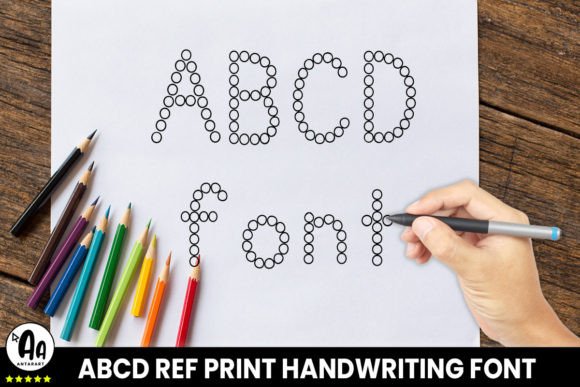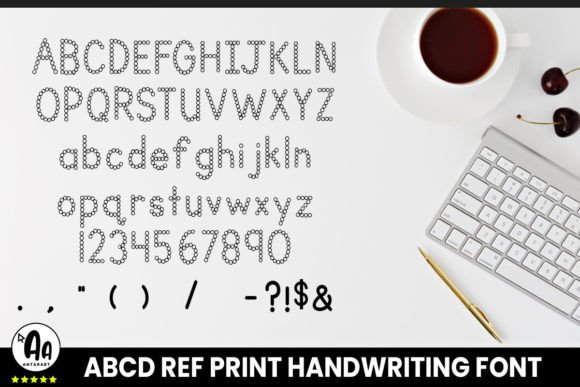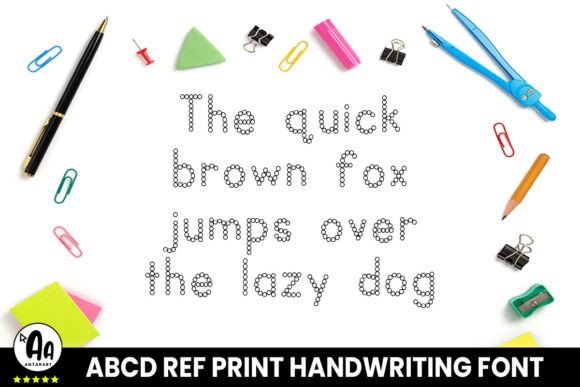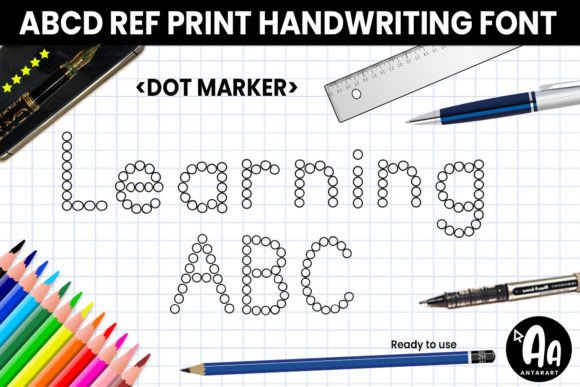
Introducing the Abcd Ref Dot Marker Font: A Fun and Interactive Learning Tool
Are you a designer, crafter, or educator looking for a unique and engaging way to teach the print alphabet? Look no further than the Abcd Ref Dot Marker Font. This innovative dotted display font is based on the D’Nealian Method used in US schools, and it’s perfect for creating thousands of worksheets that make learning fun and interactive.
What is the Abcd Ref Dot Marker Font?
The Abcd Ref Dot Marker Font is a specially designed font that features dotted letters, making it easy for children to learn and practice writing the alphabet. The font is based on the D’Nealian Method, a widely used handwriting program in US schools that emphasizes correct letter formation and spacing. The dotted design of the font allows children to practice tracing and writing letters in a fun and engaging way.
As a designer or crafter, you can use the Abcd Ref Dot Marker Font to create a wide range of learning materials, including worksheets, activity sheets, and educational resources. The font is perfect for:
- Creating customized worksheets for children to practice writing and tracing letters
- Designing educational resources, such as alphabet charts and posters
- Making interactive learning materials, such as letter tracing cards and activity sheets
- Developing engaging and interactive learning experiences for children
Benefits for Educators and Parents
As an educator or parent, you can use the Abcd Ref Dot Marker Font to make learning the alphabet a fun and enjoyable experience for children. The font is perfect for:
- Creating customized worksheets and activity sheets for children to practice writing and tracing letters
- Providing children with a interactive and engaging way to learn the alphabet
- Helping children develop their fine motor skills and hand-eye coordination
- Supporting children with special needs or learning difficulties
Features of the Abcd Ref Dot Marker Font
The Abcd Ref Dot Marker Font has several features that make it an ideal learning tool:
- Based on the D’Nealian Method, a widely used handwriting program in US schools
- Features dotted letters for easy tracing and writing practice
- Perfect for creating customized worksheets and activity sheets
- Supports interactive and engaging learning experiences
Tips for Using the Abcd Ref Dot Marker Font
Here are some tips for using the Abcd Ref Dot Marker Font:
- Use the font to create customized worksheets and activity sheets for children
- Combine the font with other educational resources, such as alphabet charts and posters
- Use the font to create engaging and interactive learning experiences for children
The Abcd Ref Dot Marker Font is a valuable resource for designers, crafters, educators, and parents who want to make learning the alphabet a fun and interactive experience for children. With its unique dotted design and compatibility with various design software and applications, this font is perfect for creating customized worksheets, activity sheets, and educational resources. Whether you’re looking to create engaging learning materials or support children with special needs, the Abcd Ref Dot Marker Font is an excellent choice.